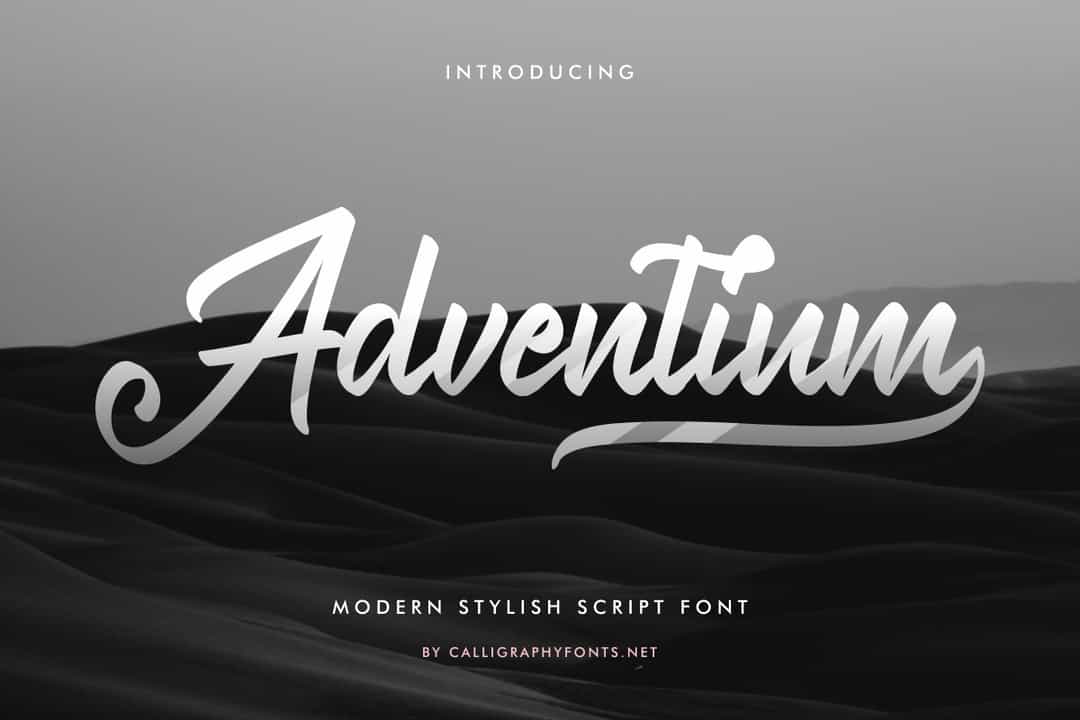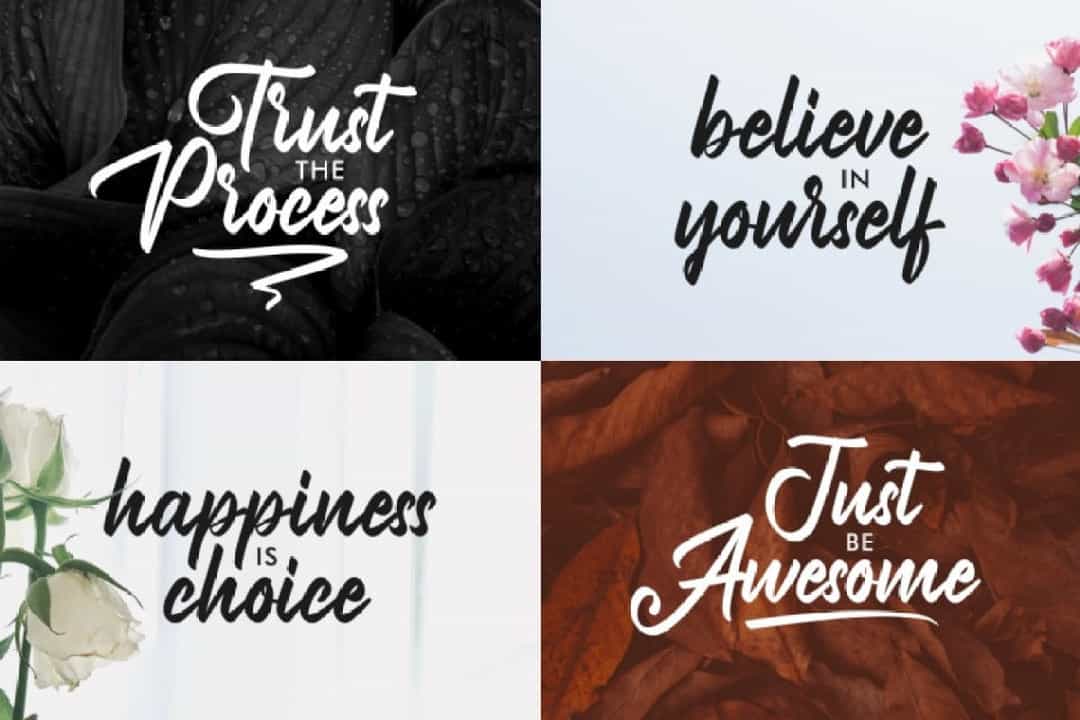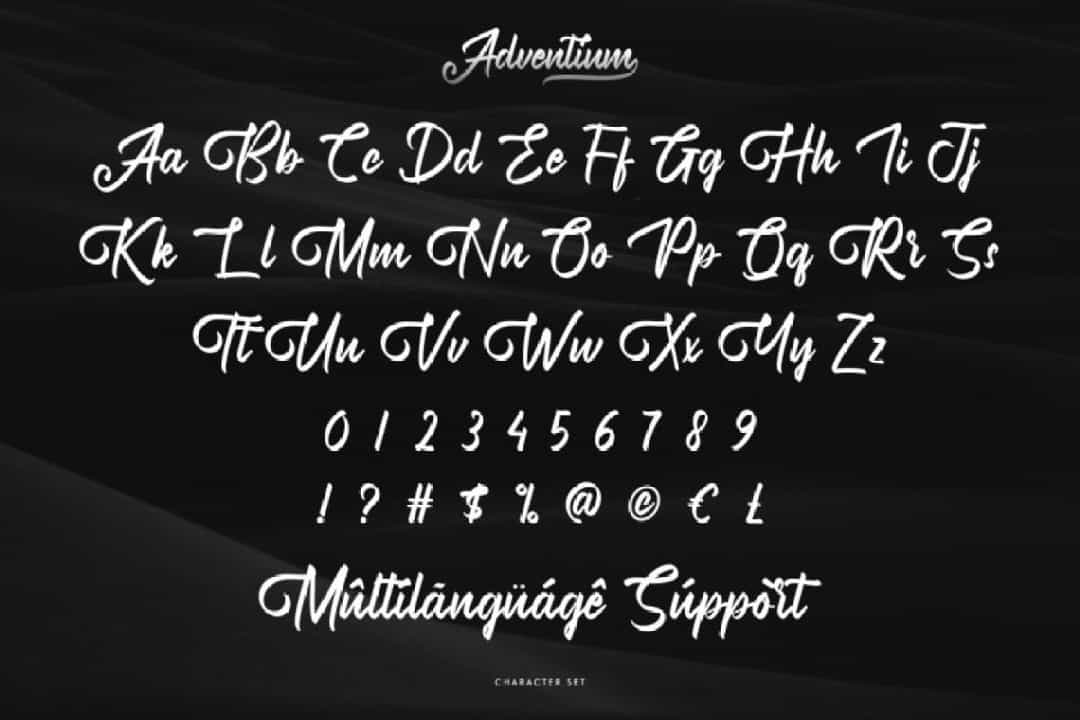
Adventium is a modern calligraphy font which was designed in the year 2010. This elegant font will suit video, social networks logos, invitations, and flyers as well as any other projects without any problem. Adventium Font stands for the stylish and modern look and style along with the luxurious features like the elegant brush font.